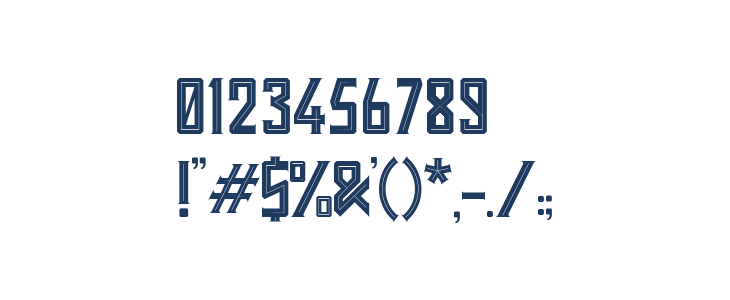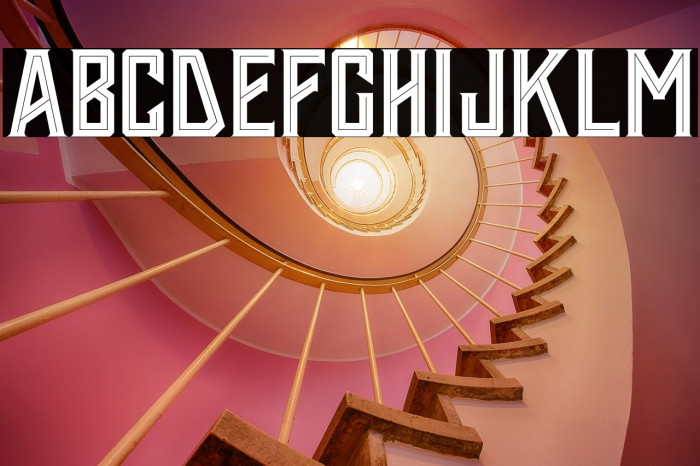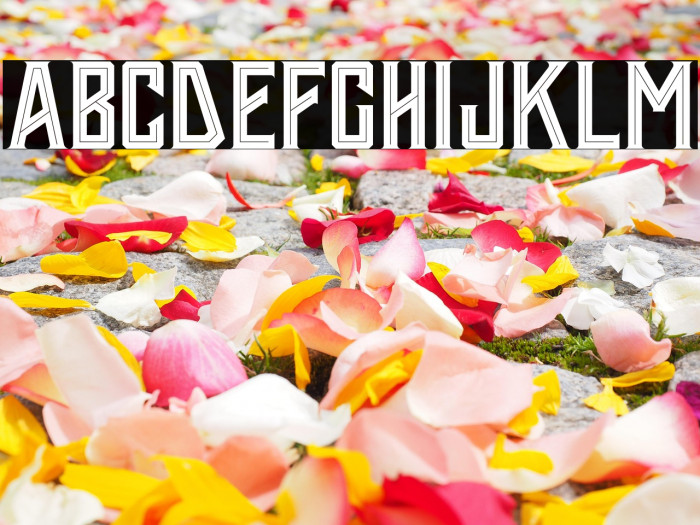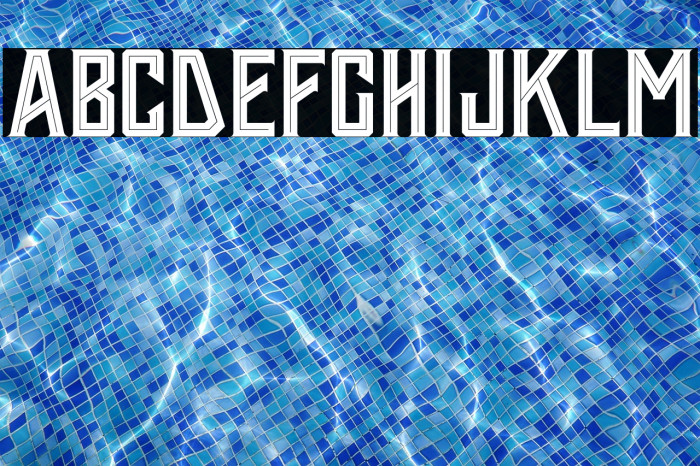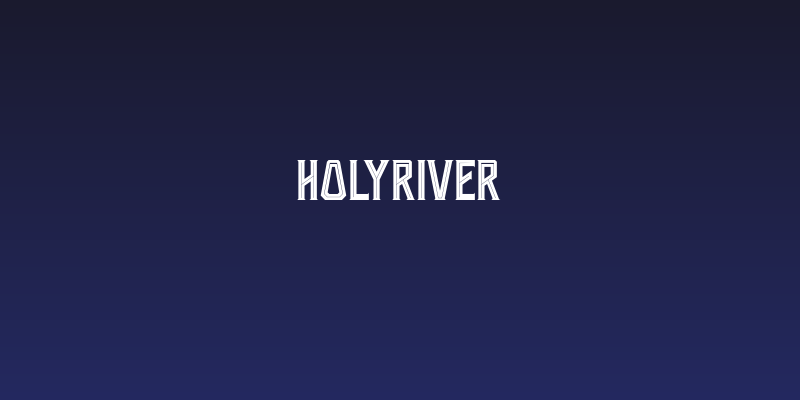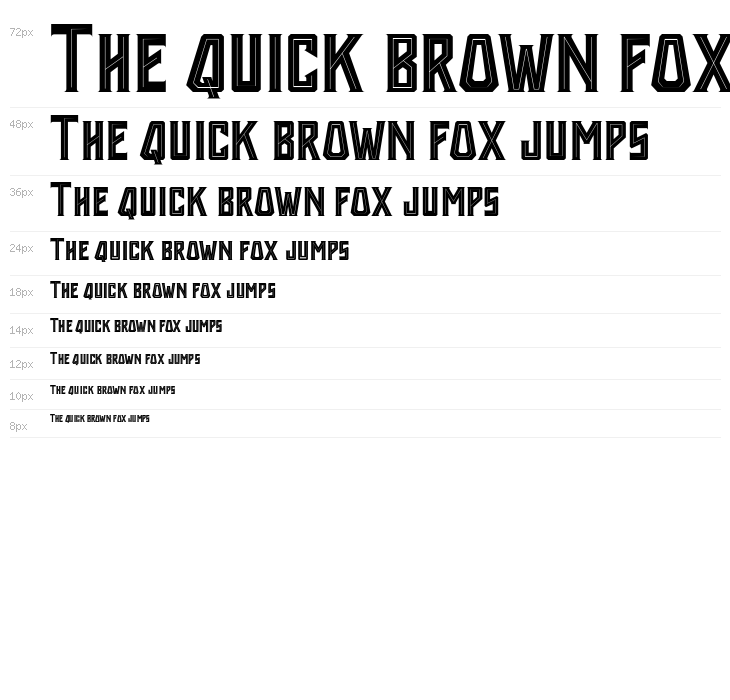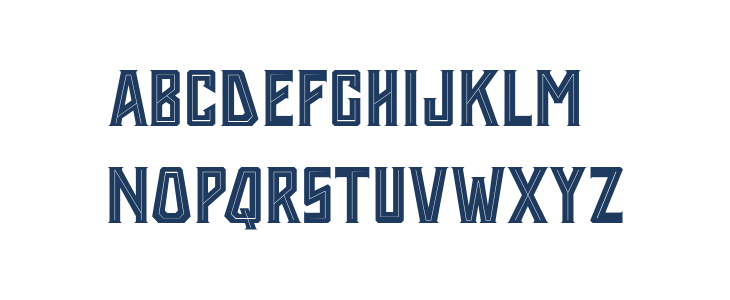
Holyriver Font
Holyriver Description
This font features a bold, geometric design with a strong presence. The characters are constructed with thick, angular lines and sharp edges, giving it a modern and industrial feel. The uppercase letters are particularly striking, with a consistent height and width that create a uniform appearance. The numbers and special characters maintain the same boldness and angularity, ensuring a cohesive look across all glyphs. The font's unique style makes it stand out, ideal for projects that require a strong visual impact.
Proposed ProjectsIdeal for branding, posters, headlines, and any design requiring a strong, impactful typeface.